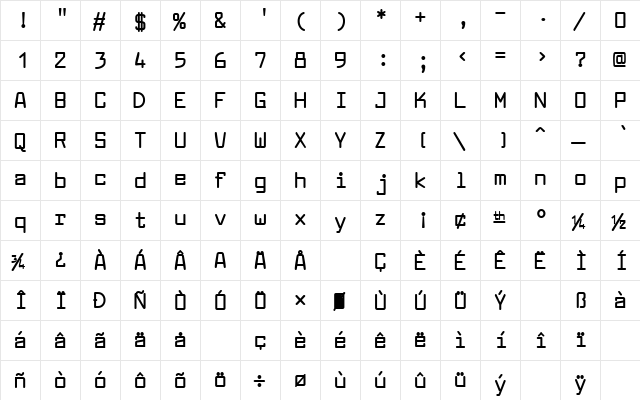
Larabiefont Bold
Design Context for Larabiefont Typeface
Larabiefont is a composed and adaptable typeface that performs quietly and consistently across a wide range of design contexts. Its bold stroke weight gives it real presence on the page.